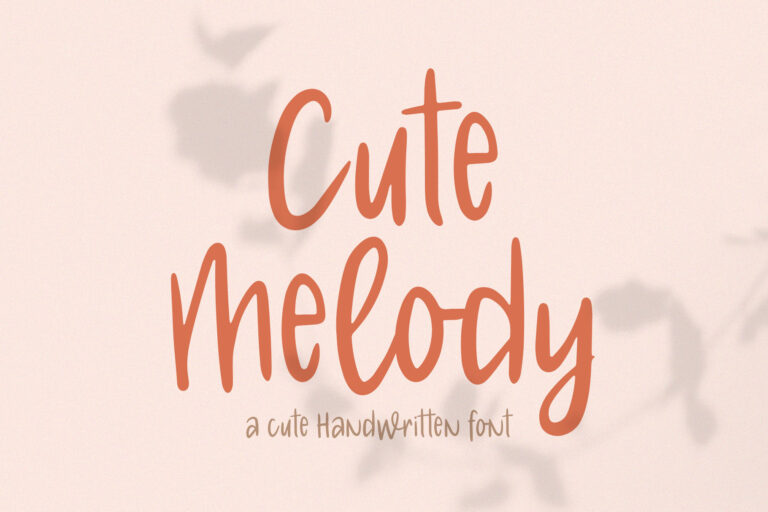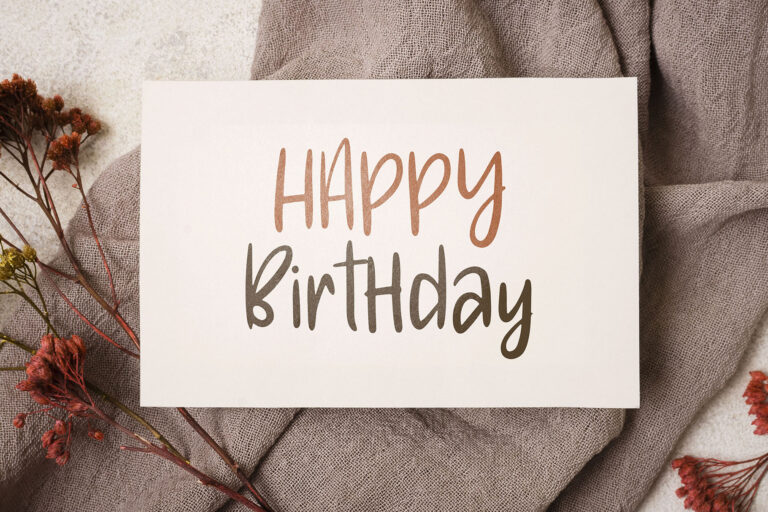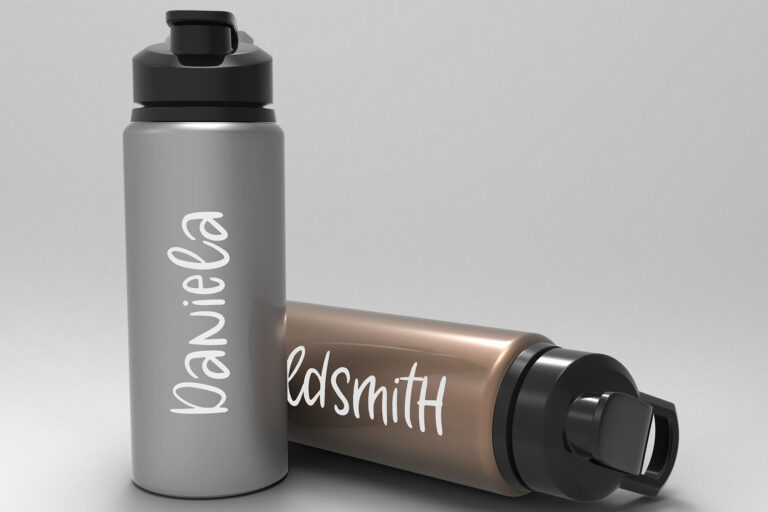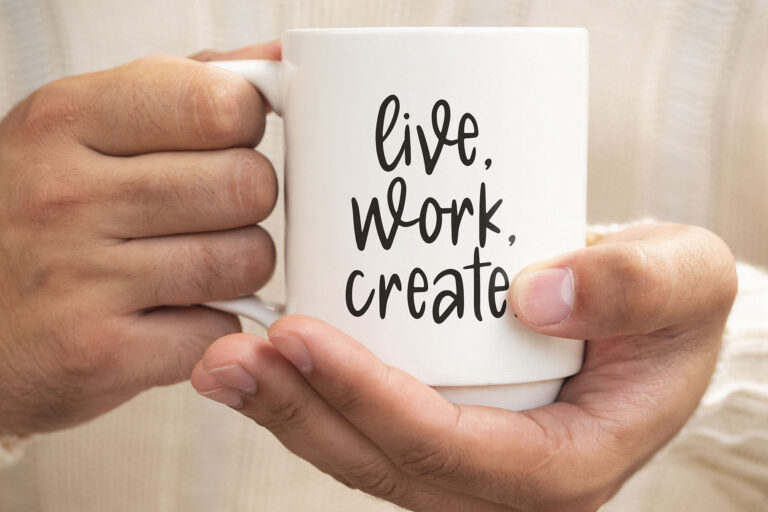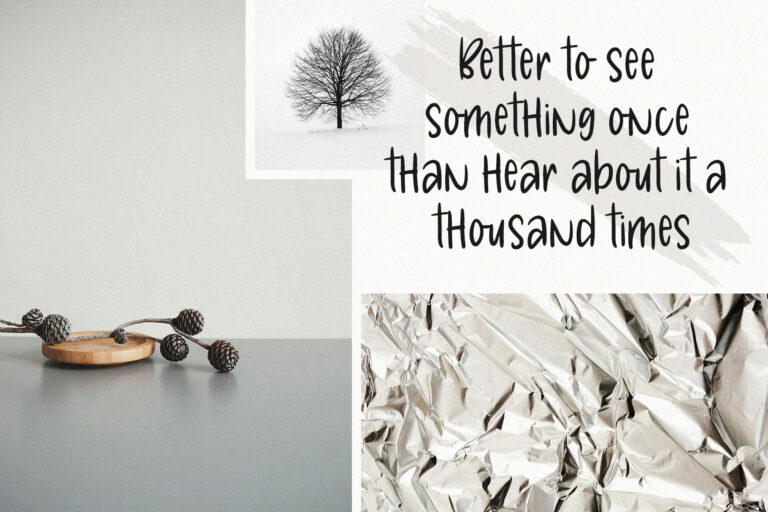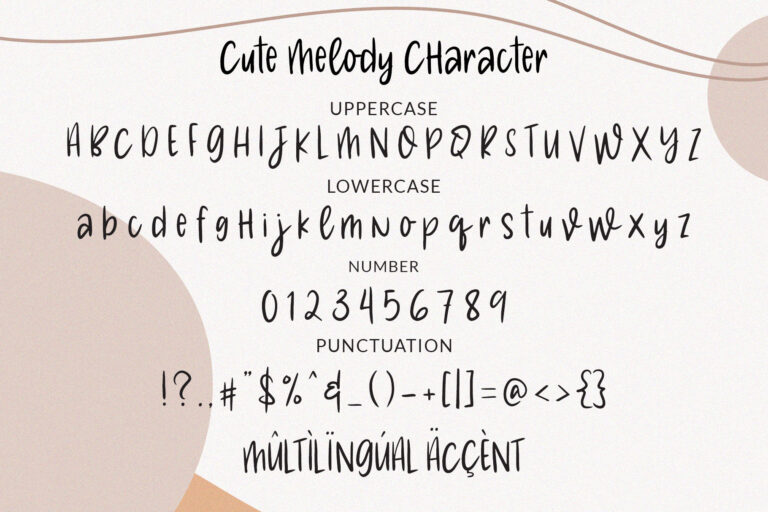
Cute Melody // Cute Handwritten Font
Cute Melody is a sweet, funny, cute handwritten font. Clean and soft, this font is the perfect fit for all of your crafty DIY projects, cricut, logos, branding, social media, etc.